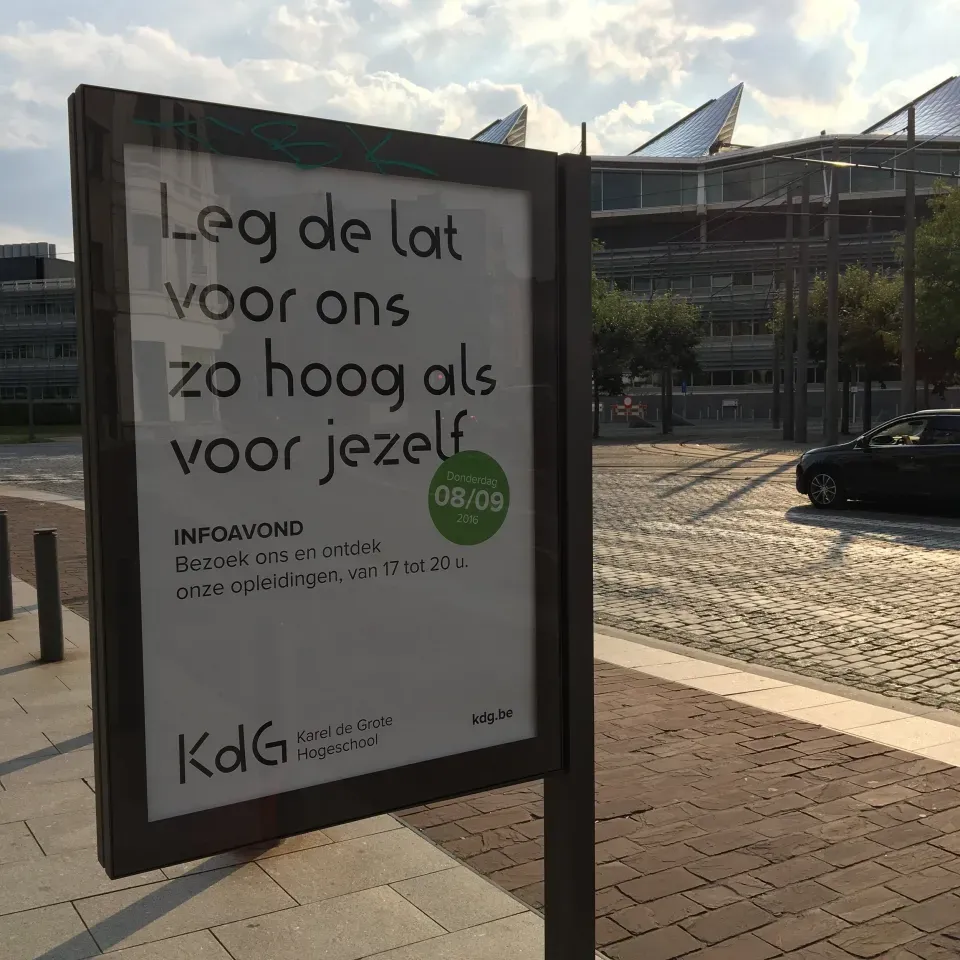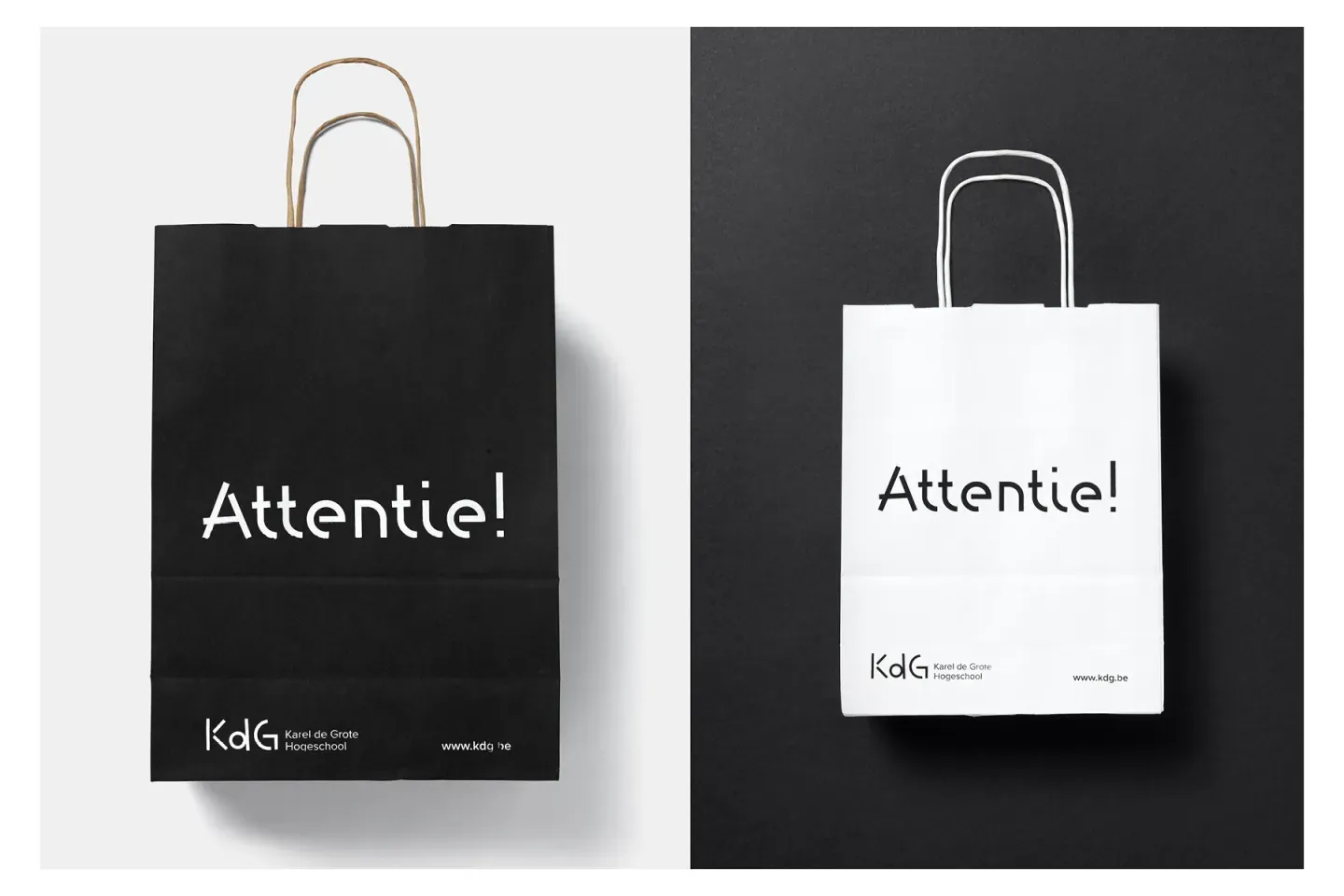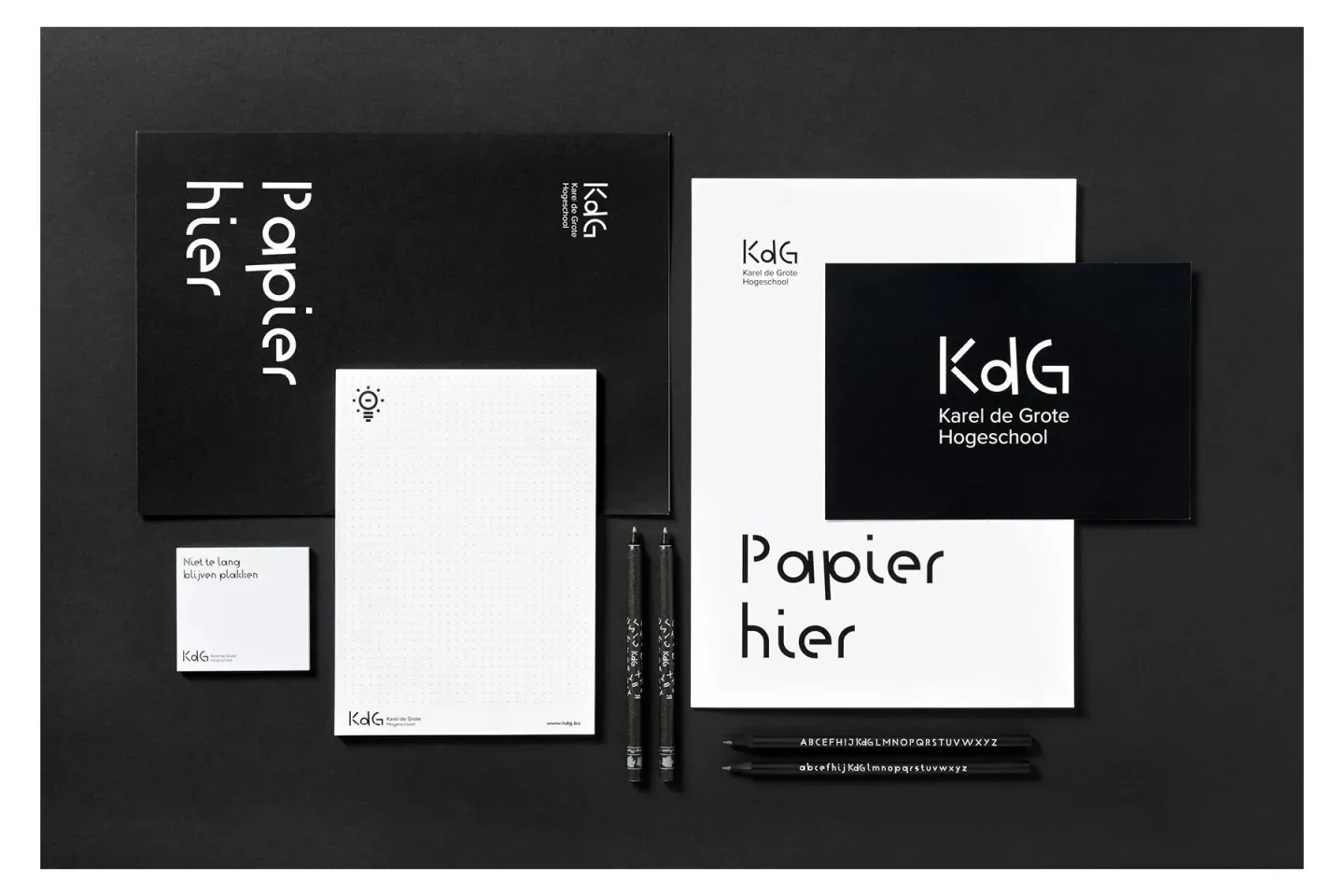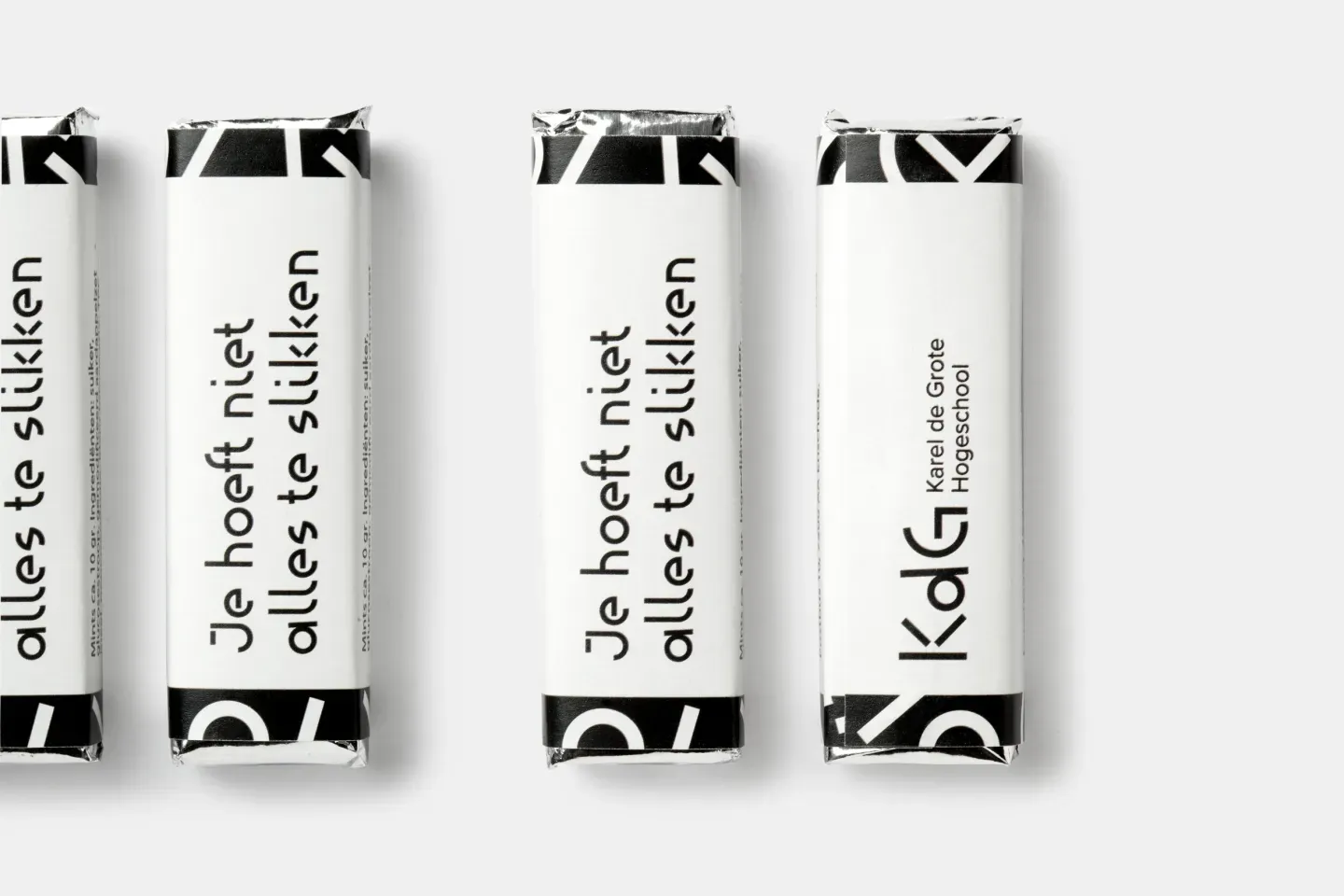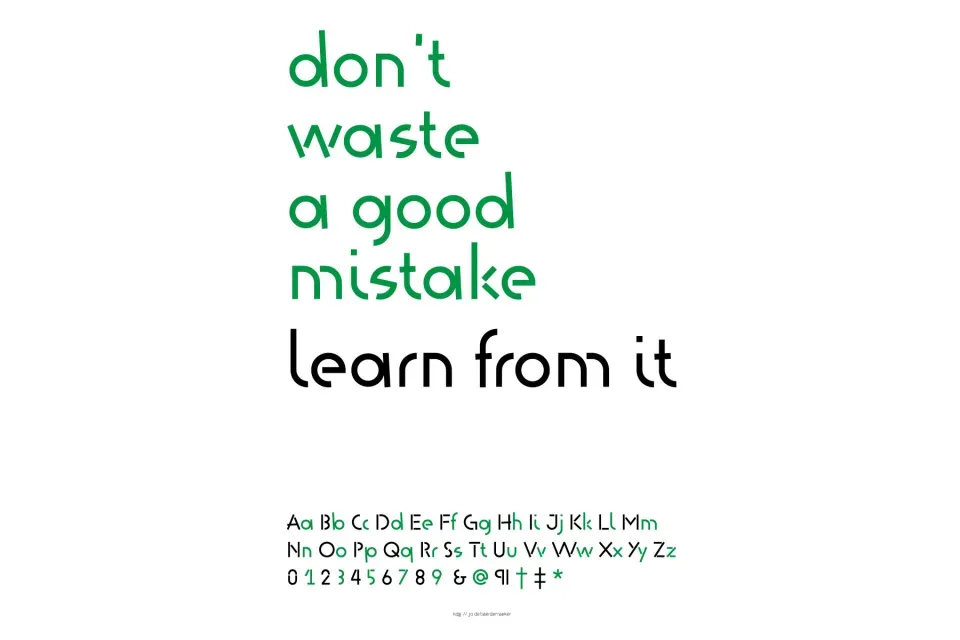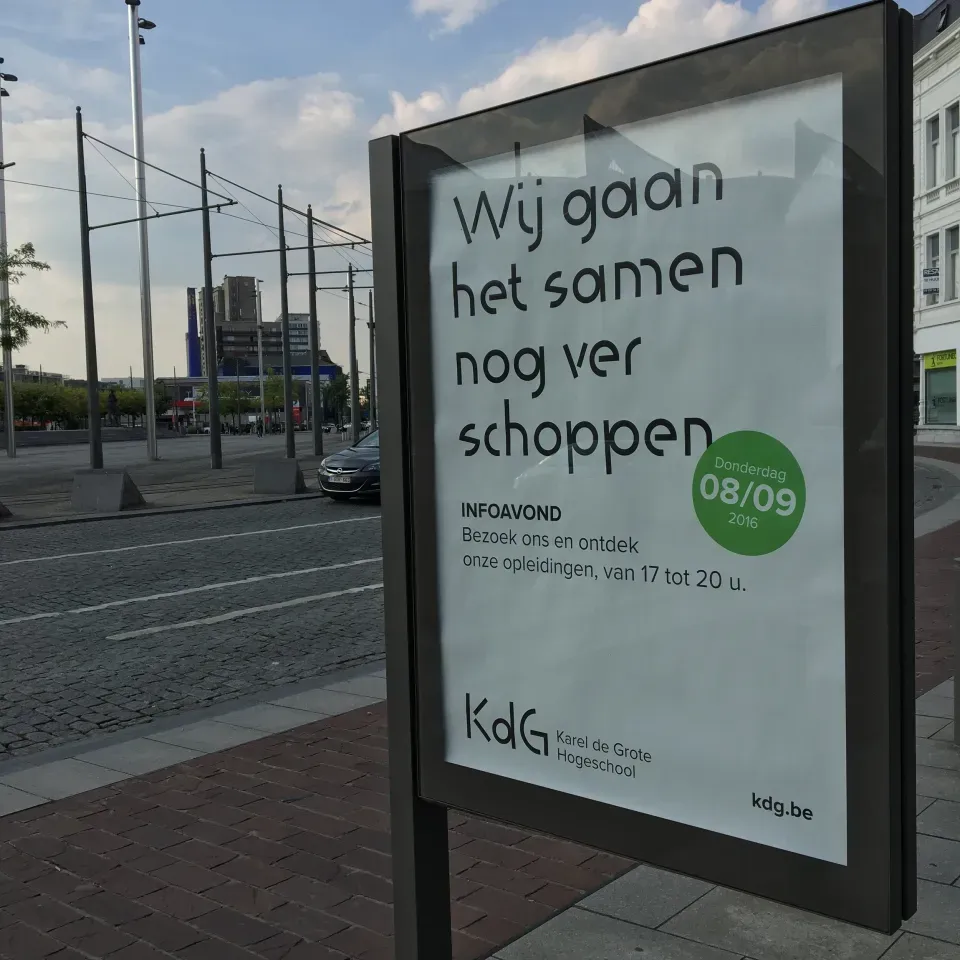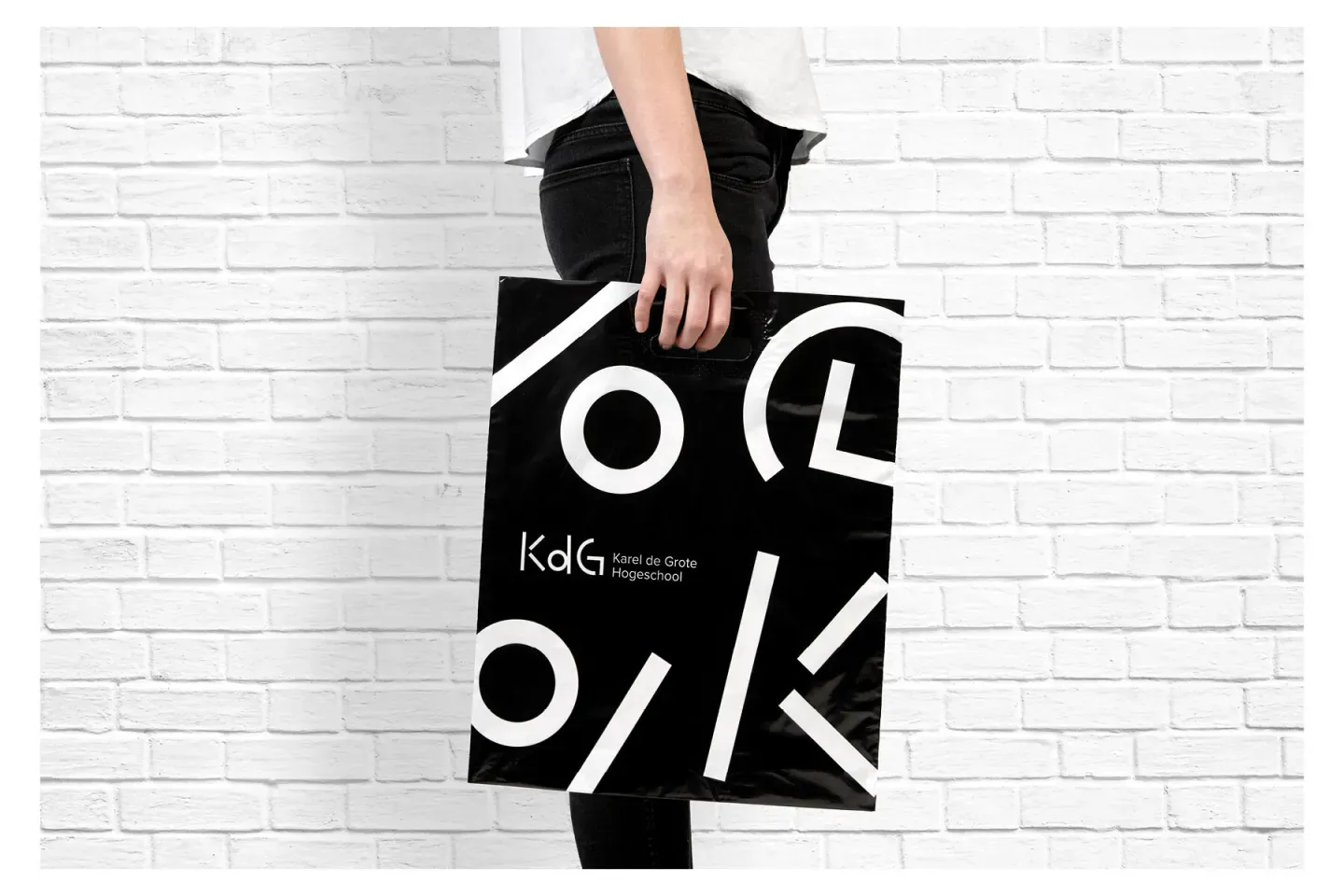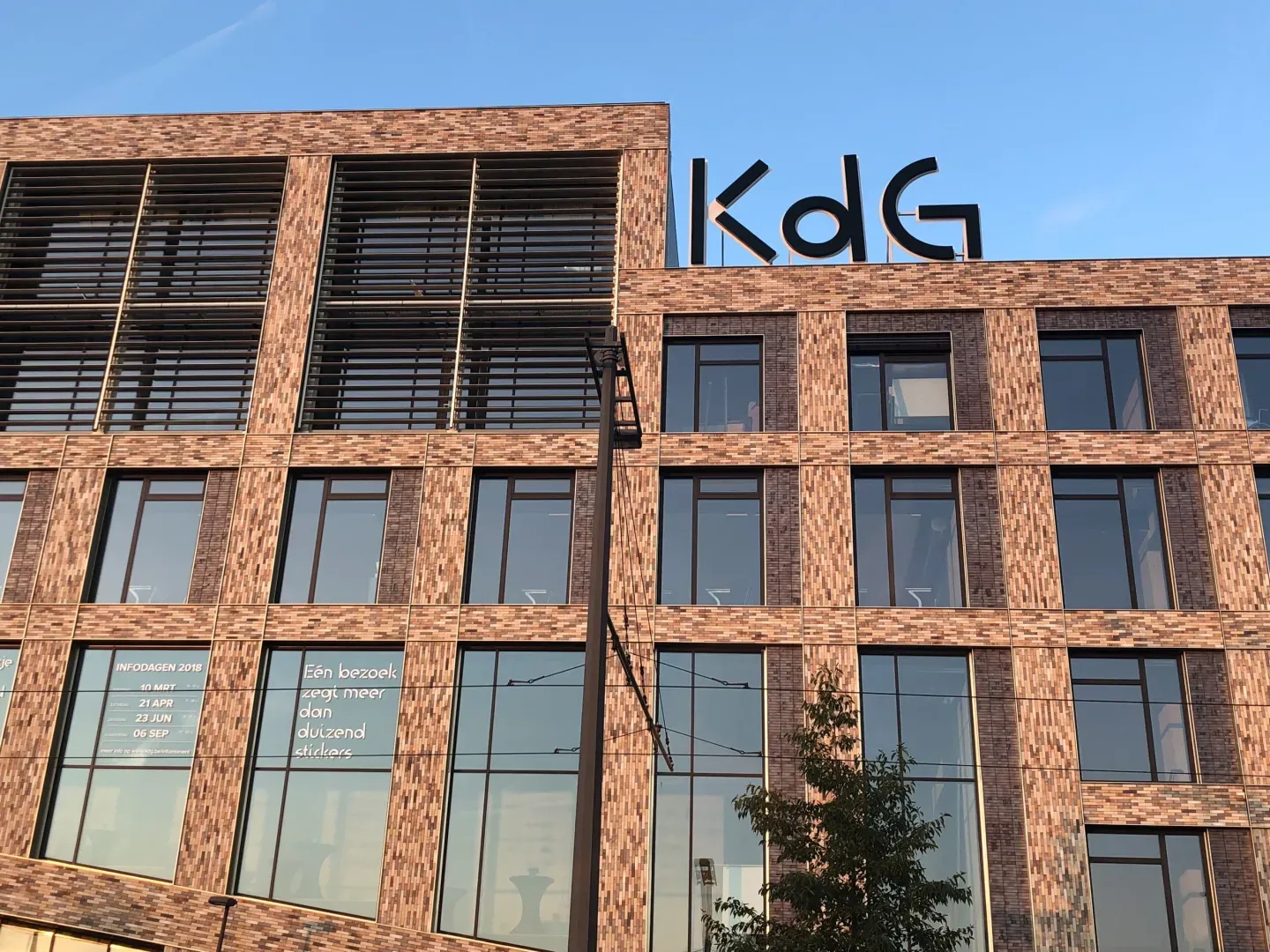
The KdG font was designed for the new visual identity of the Karel de Grote Hogeschool (KdG).
KdG is a college in Antwerp which offers a wide range of courses that combine theory and practice. With the guidance of teachers and coaches, students are invited to get hands-on and take part in their own education.
The visual identity, which was conceptualized by Mechelen-based Branding Today in Belgium, is based on geometric building blocks which, in combination, form a unique family of visual elements. This language translates the KdG’s view on stimulating students on being “builders”, with a proactive attitude towards their studies and life.